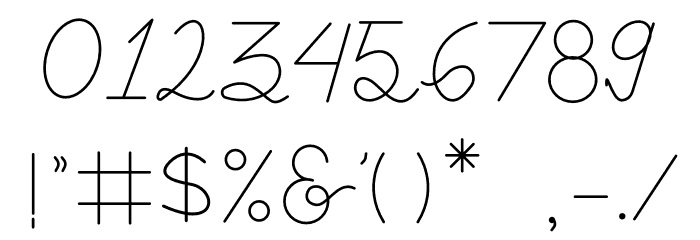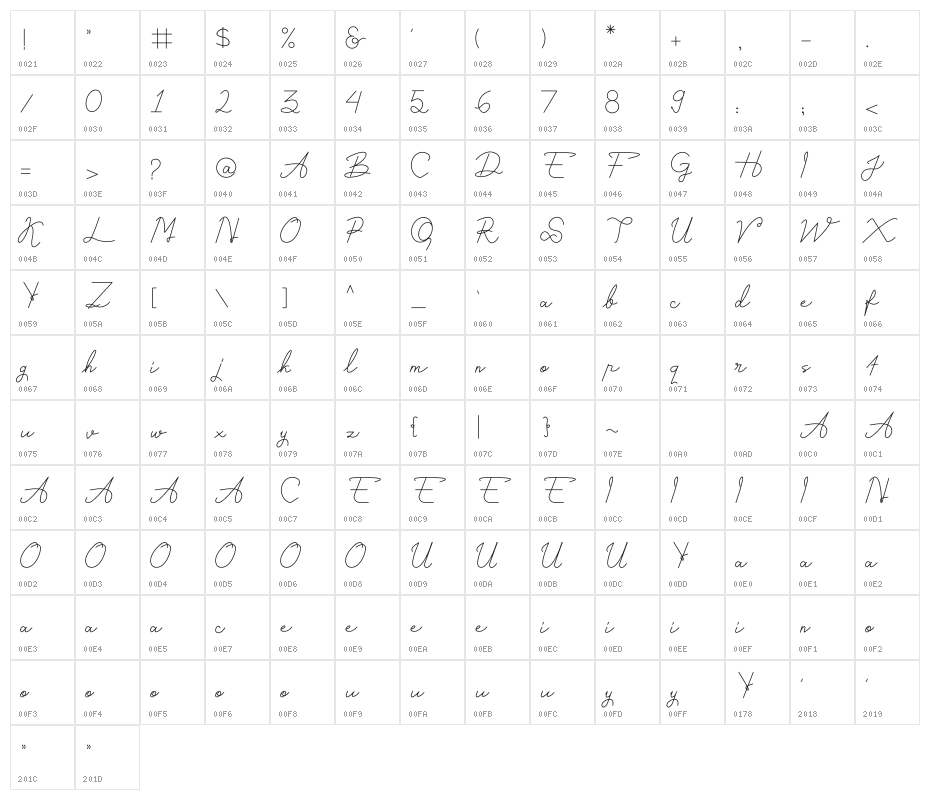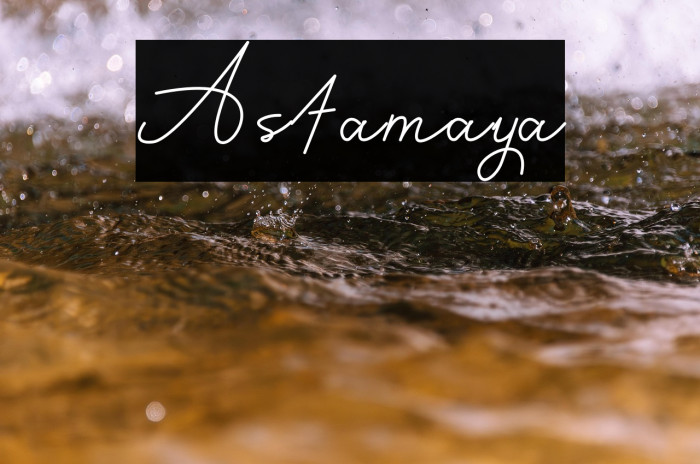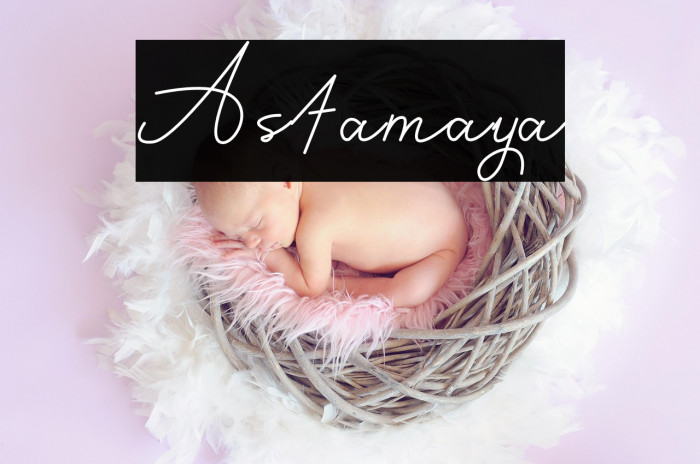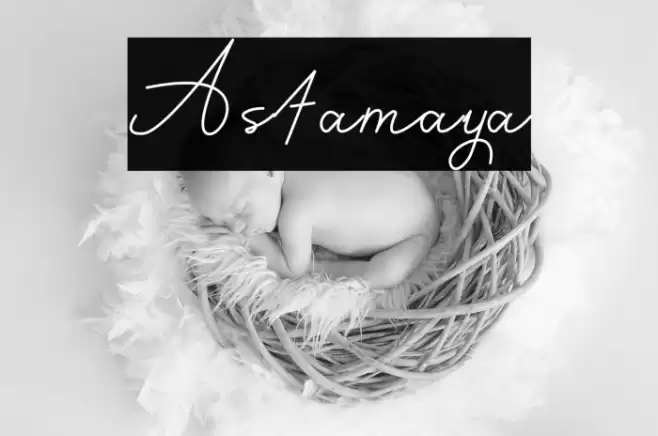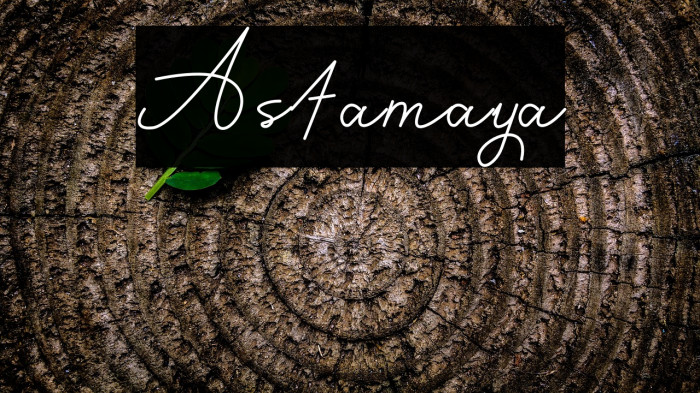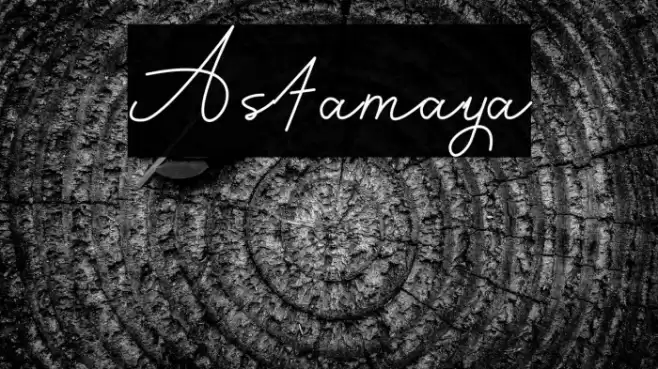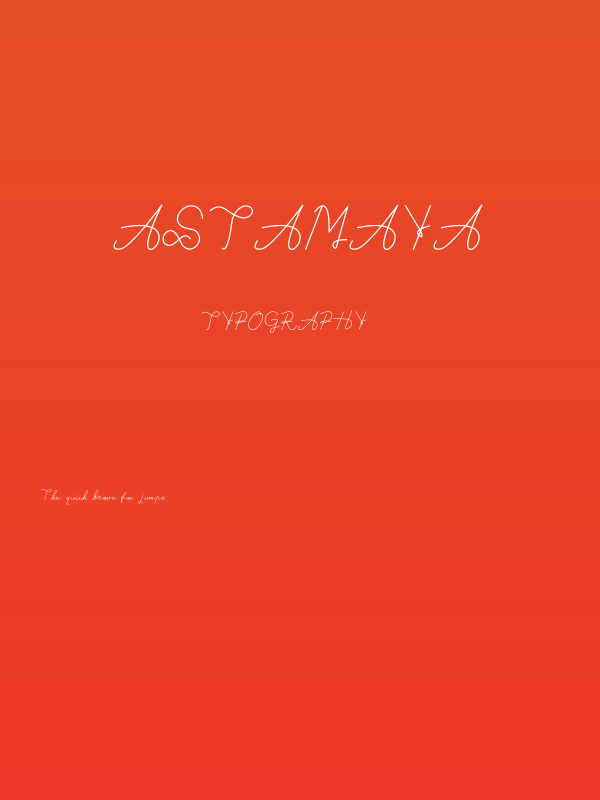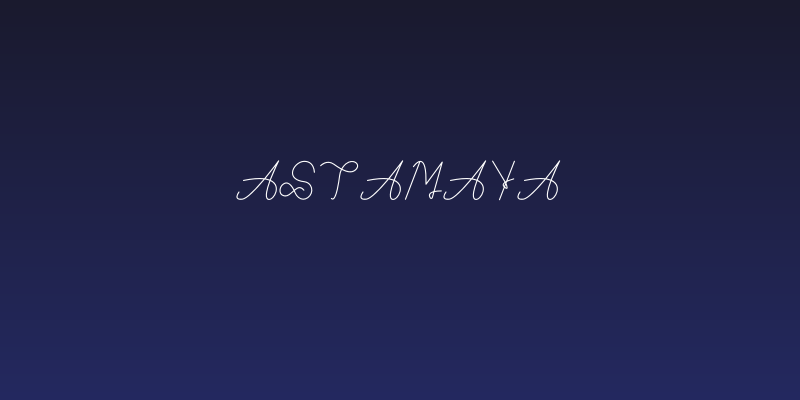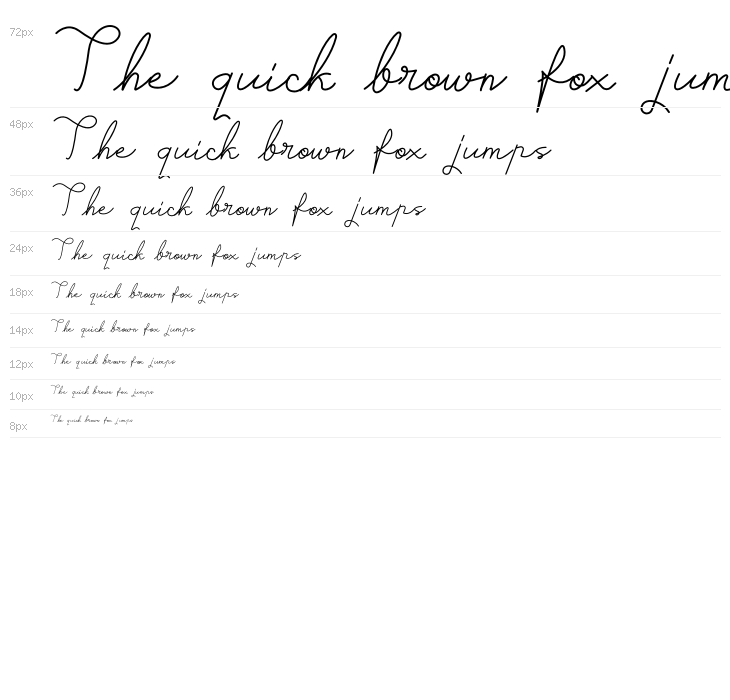
Astamaya Font
Astamaya Description
This elegant script font features a delicate and flowing design, characterized by its smooth, continuous strokes and graceful curves. The uppercase letters exhibit a sophisticated flair with subtle loops and swashes, while the lowercase letters maintain a consistent, connected style that enhances readability. The numerals are designed with a similar fluidity, ensuring a cohesive look across all characters. Special characters are thoughtfully integrated, maintaining the font's overall aesthetic. This font exudes a sense of elegance and refinement, making it ideal for projects that require a touch of sophistication.